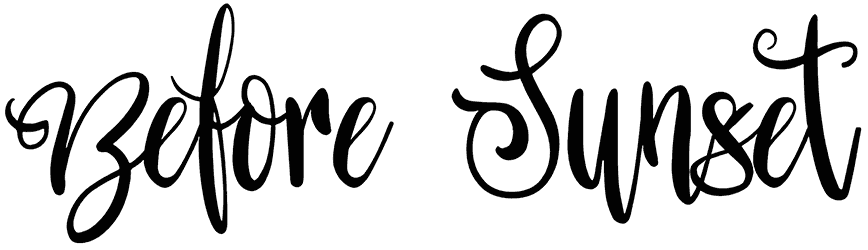
Before Sunset Font
Before you present your creative design, choose a smooth and polished letterform, such as Before Sunset, to enhance your context. The pretty, detailed letters of this swirly font are going to make your words more catching. This handwritten font can improve various projects from tattoos to wedding invitations. Give it a chance and enjoy the final show.
Before Sunset is suitable for every craft projects such as print out design, embroidery, and so many more.